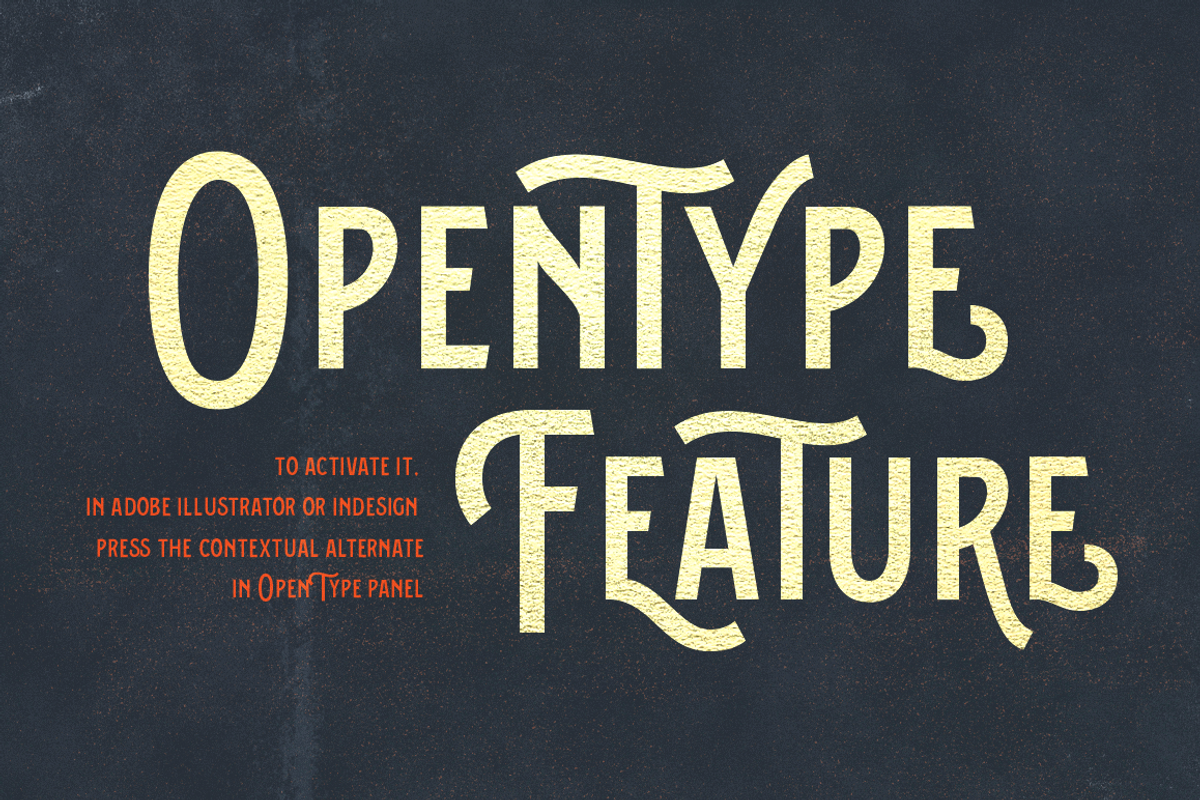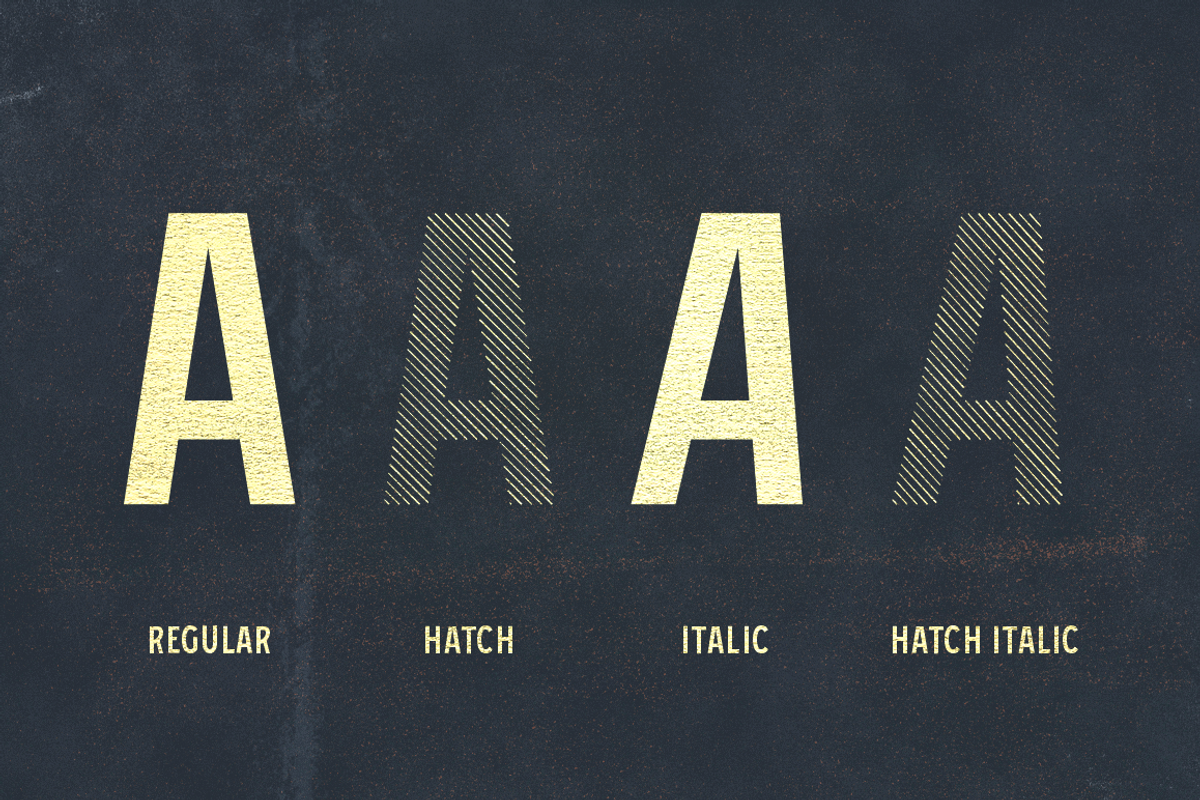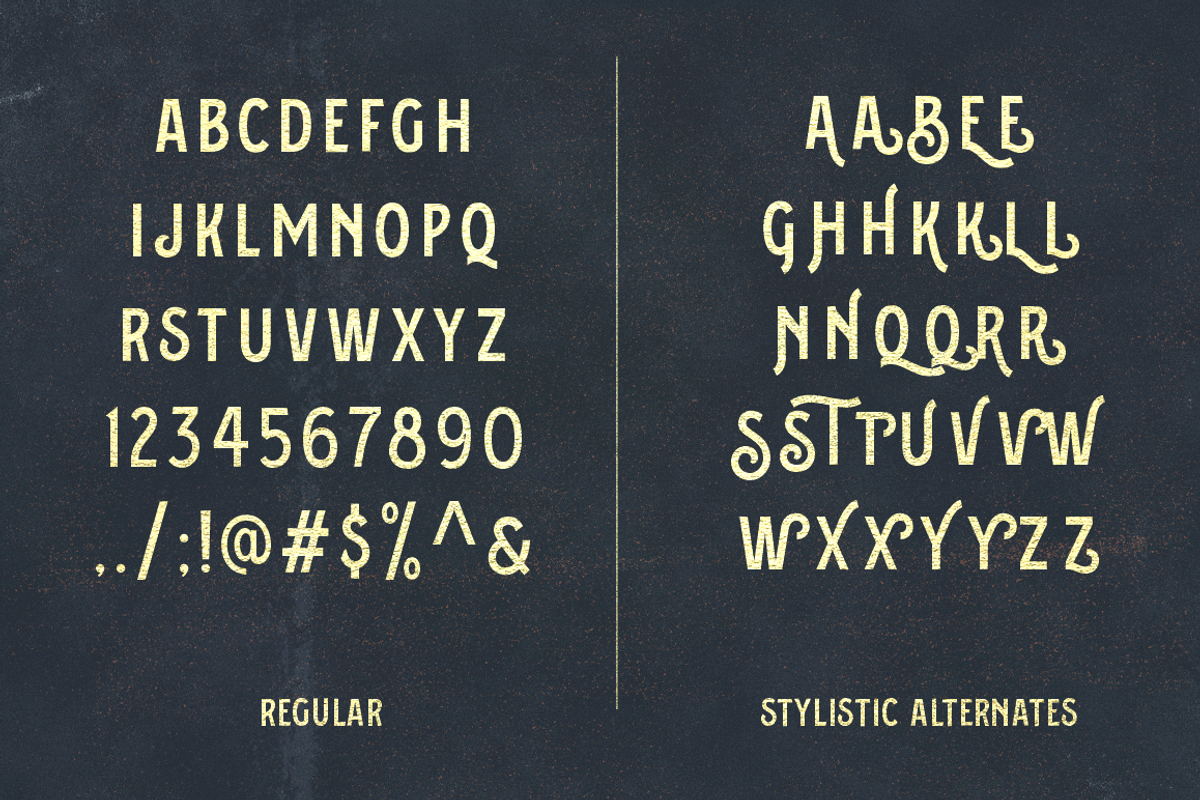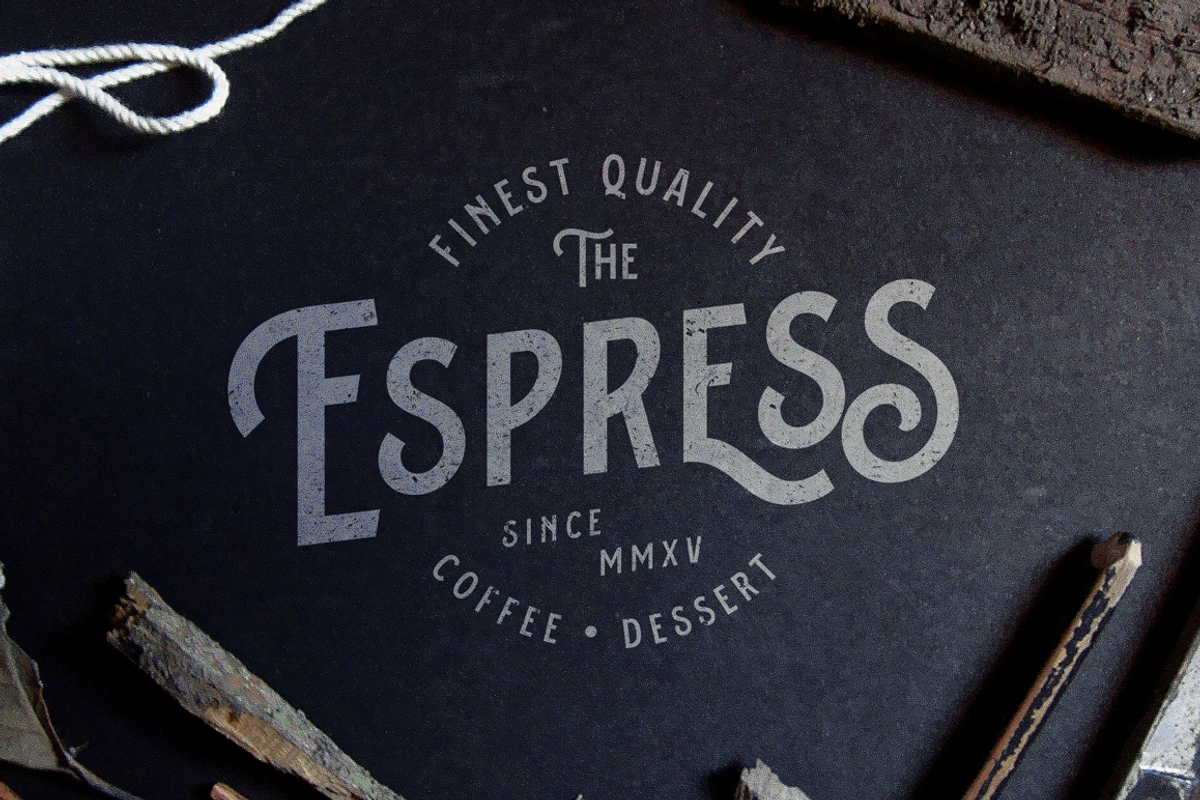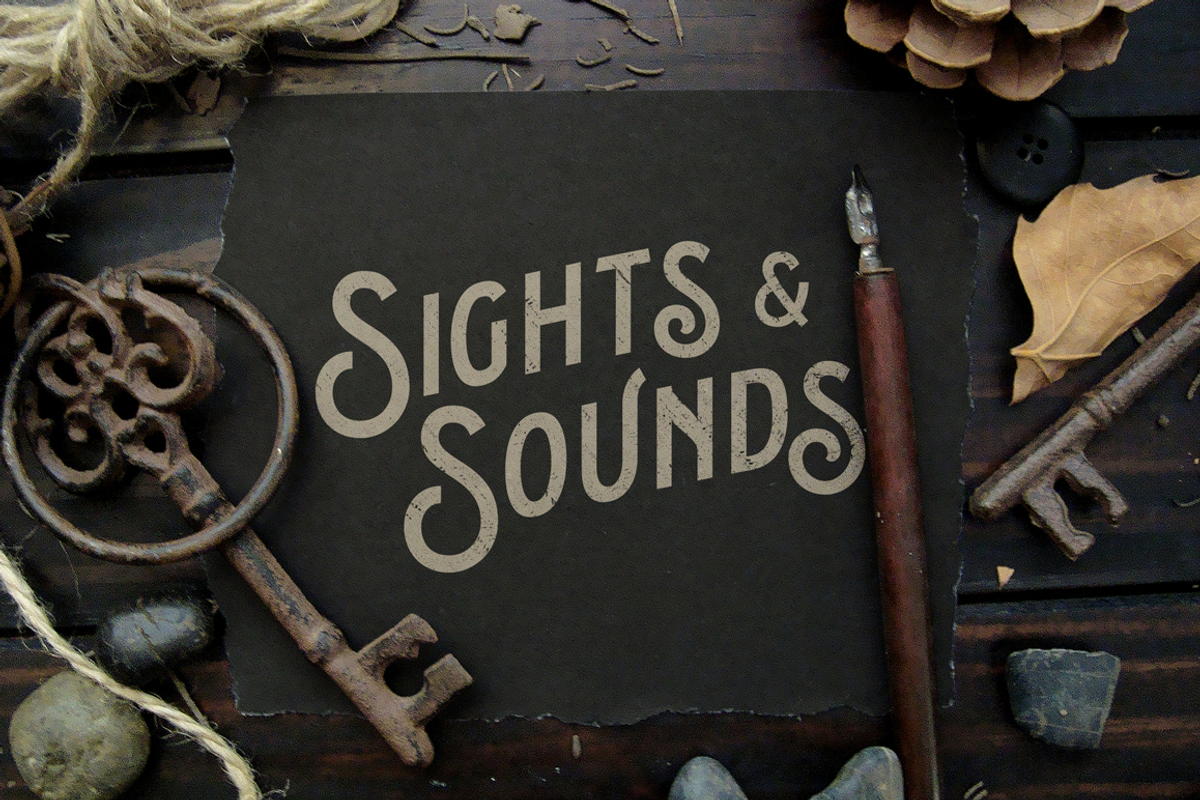
Fictoria Typeface
Fictoria Typeface by Ilham Herry is a font selected for branding, posters, packaging, typography.
- Inspired by antique and vintage advertising tins package.
- Come with 4 style and OpenType features with Stylistic Alternates, Contextual Alternate.
- Fictoria Regular
- Fictoria Italic
- Fictoria Hatch
- Fictoria Hatch Italic
Fictoria Typeface by Ilham Herry fits naturally into Branding, posters, packaging, typography.